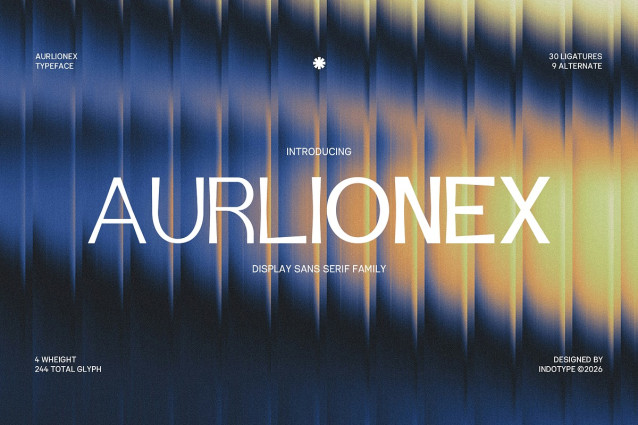
IT Aurlionex Font
IT Aurlionex Font is a sophisticated and highly versatile display sans-serif family designed for creatives who demand both flexibility and personality. With its clean geometric foundations and subtle contemporary details, this typeface strikes the perfect balance between modern clarity and expressive character. Whether used for bold headlines or refined branding, Aurlionex delivers impact with elegance. This comprehensive family offers exceptional creative control with 4 weights ranging from light to extra bold, ensuring tonal versatility across any project. With a rich set of 244 total glyphs, including 30 stylish ligatures and 9 alternate characters, Aurlionex empowers designers to craft unique, custom typographic compositions that stand out. It’s not just a font family—it’s a complete toolkit for distinctive display typography.